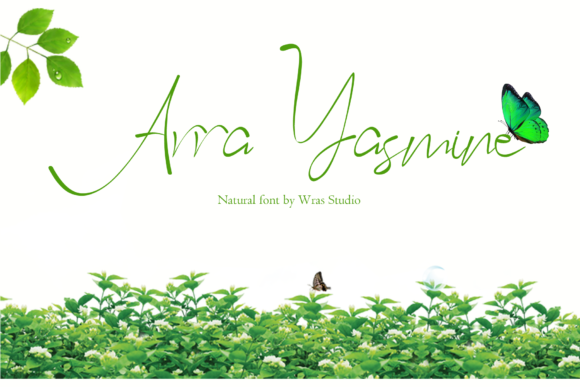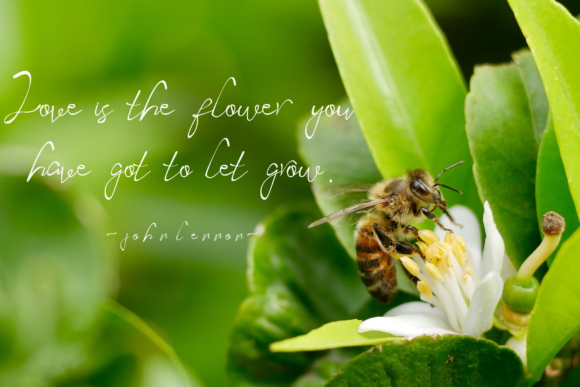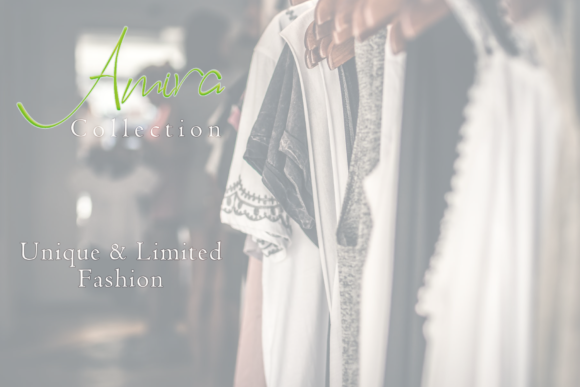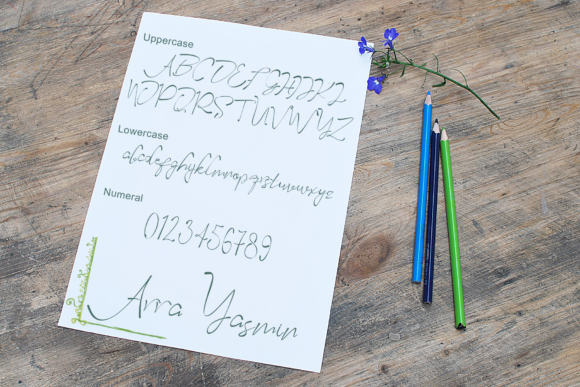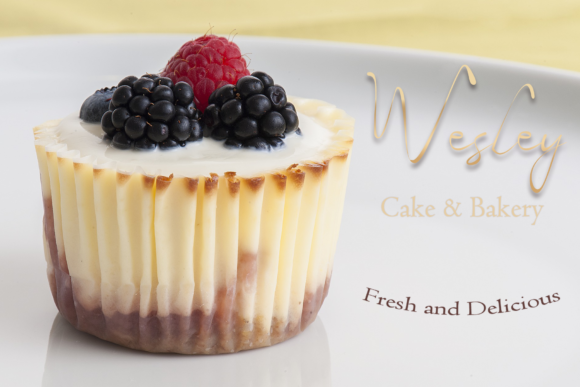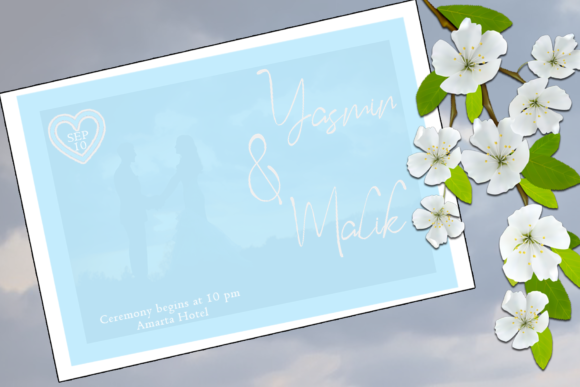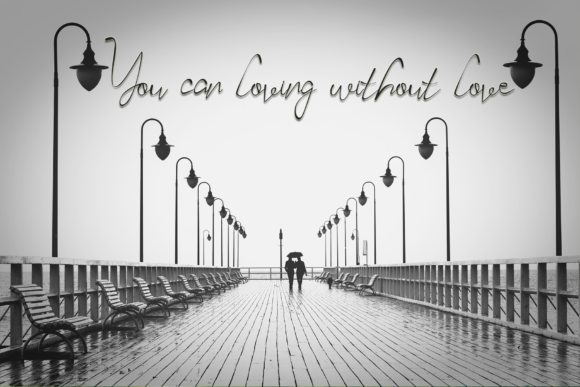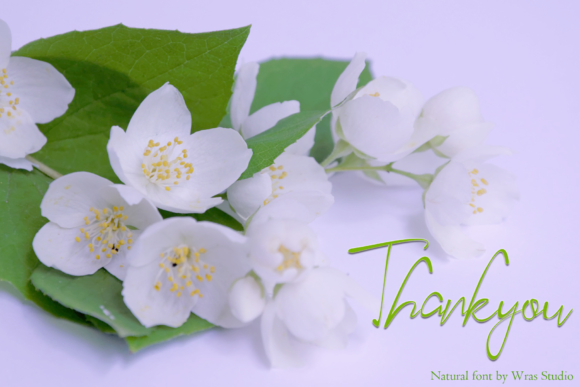
HomeScript FontsArra Yasmine Font Script Fonts Arra Yasmine Font FacebookXPinterestWhatsApp Arra Yasmine Font Poster 2 Arra Yasmine Font Poster 3 Arra Yasmine Font Poster 4 Arra Yasmine Font Poster 5 Arra Yasmine Font Poster 6 Arra Yasmine Font Poster 7 Arra Yasmine Font Poster 8 About Arra Yasmine Font Arra Yasmine is a handwritten font with natural and calm flow. It works well for a huge variety of applications! DOWNLOAD NOW People also explored Shrew Font Grand Aprilliant Duo Font Goldlove Font Better Spring Font Sparta Jagoan Font Roxxane Font Sonia Diary Font Dreamy Kids Font Nearly Brush Font 319 0 TagsArra Yasmine Font Previous articleBrittney FontNext articleBangin Font LEAVE A REPLY Cancel reply Comment: Please enter your comment! Name:* Please enter your name here Email:* You have entered an incorrect email address! Please enter your email address here Website: Save my name, email, and website in this browser for the next time I comment. Personal Use Free Hanberra Personal Use Free Read more about this font Jilliant Personal Use Free Read more about this font Rembank Personal Use Free Read more about this font Hair Thinned Personal Use Free Read more about this font BLOG Best Fonts for T-Shirt Design – Top 2025 Picks In 2025, t-shirt design has become more than just fashion—it's a form of self-expression. Whether you're... Free vs Paid Fonts: Why Investing in Premium Fonts Is Worth It Free Fonts Risk: Why Free Fonts Can Be Dangerous for Designers How to Install and Use Fonts on Windows, macOS, and Web Projects